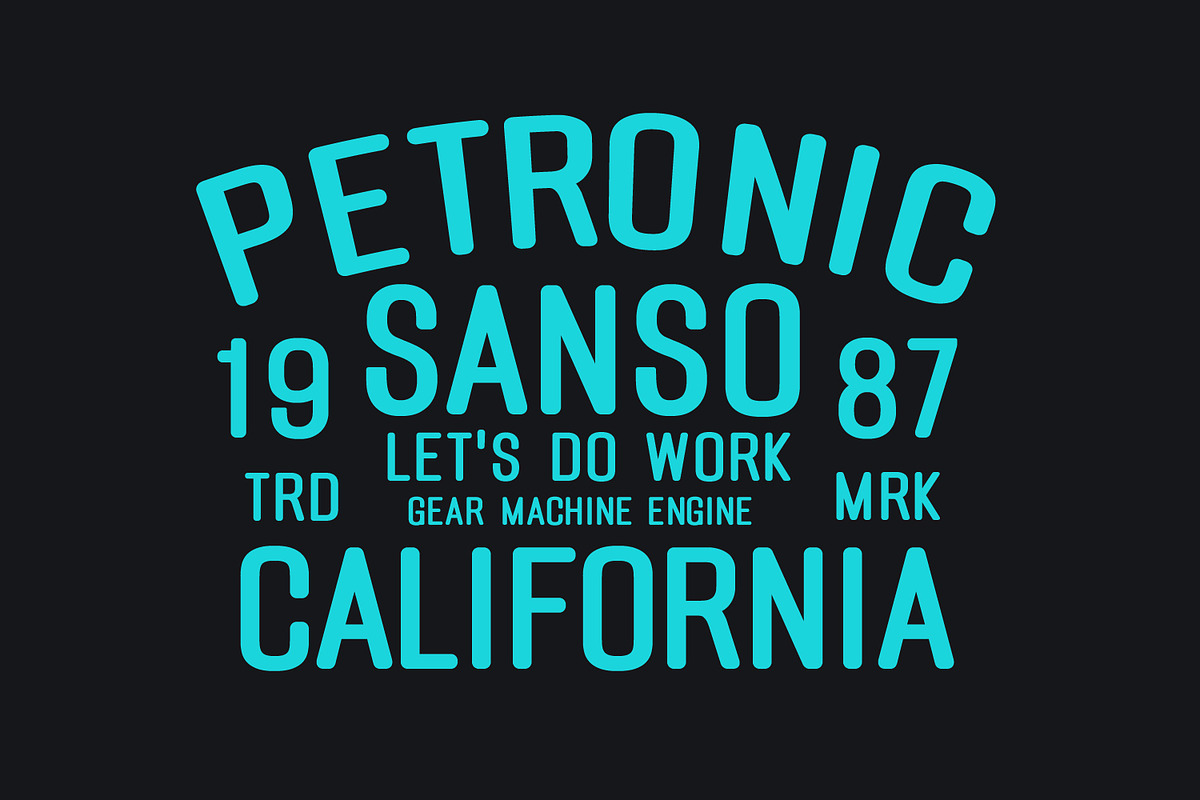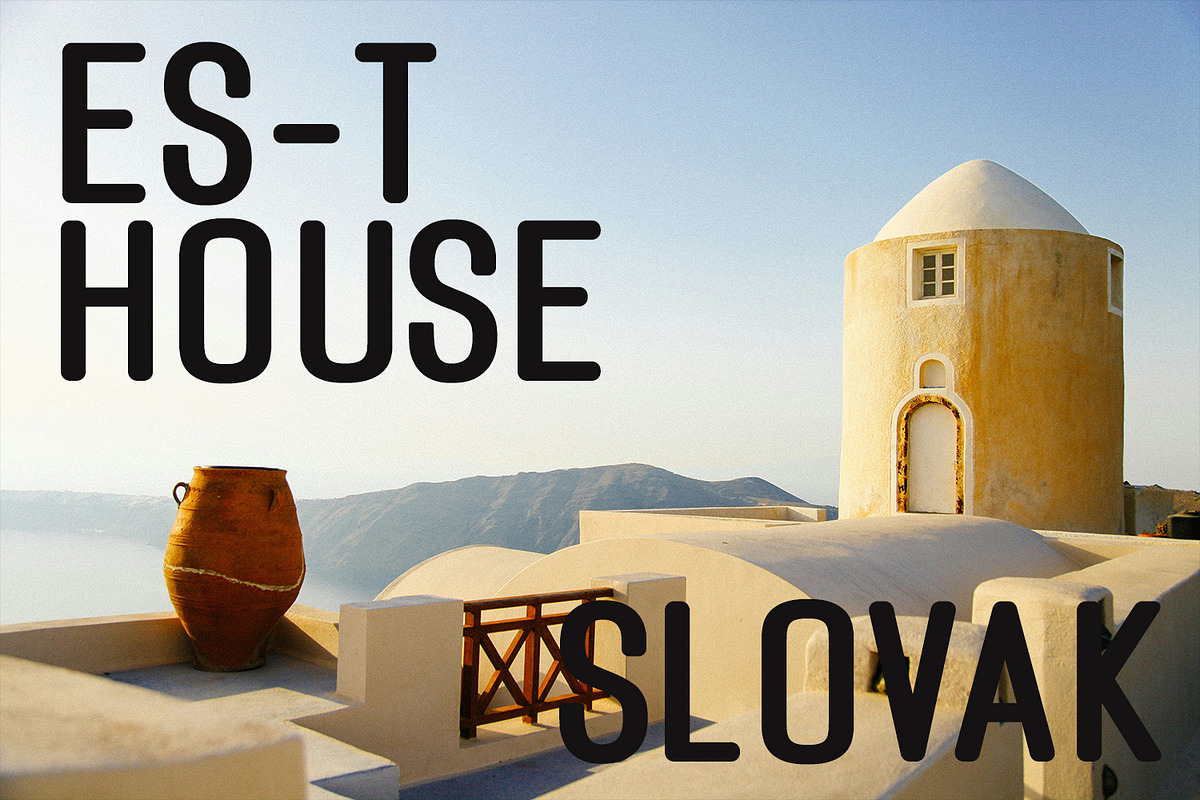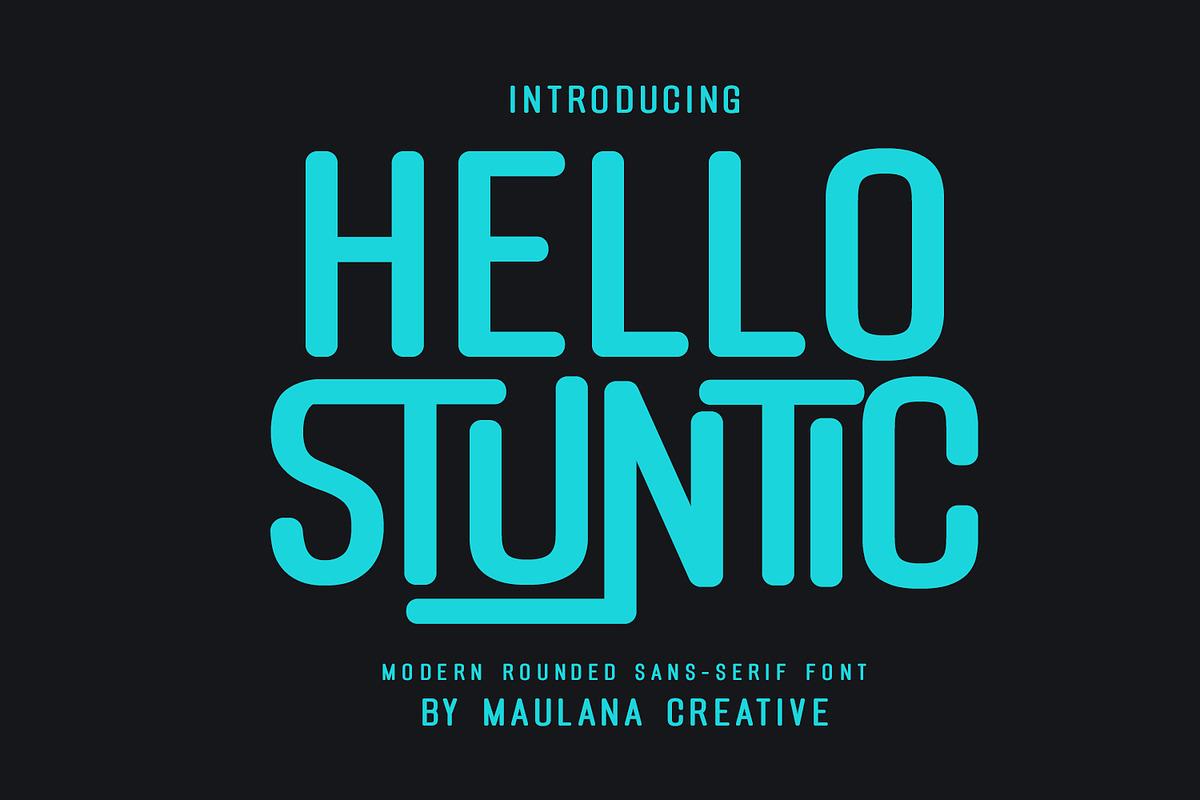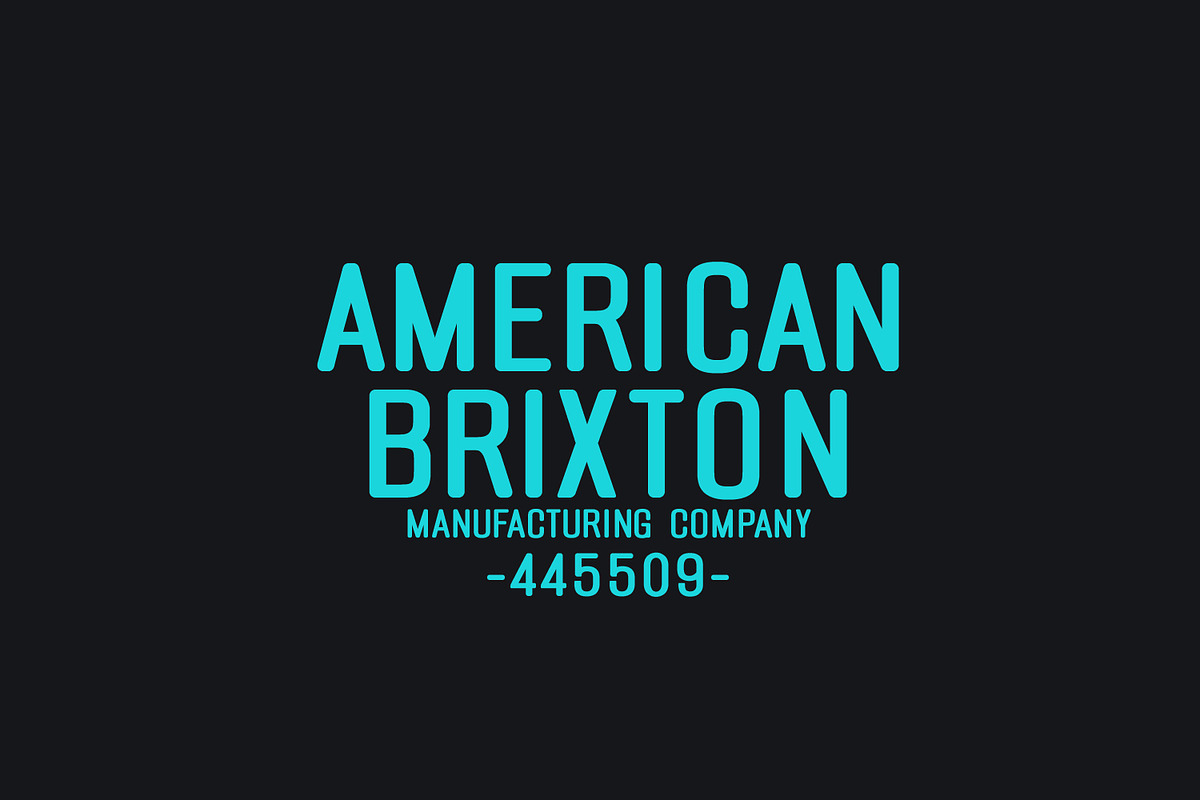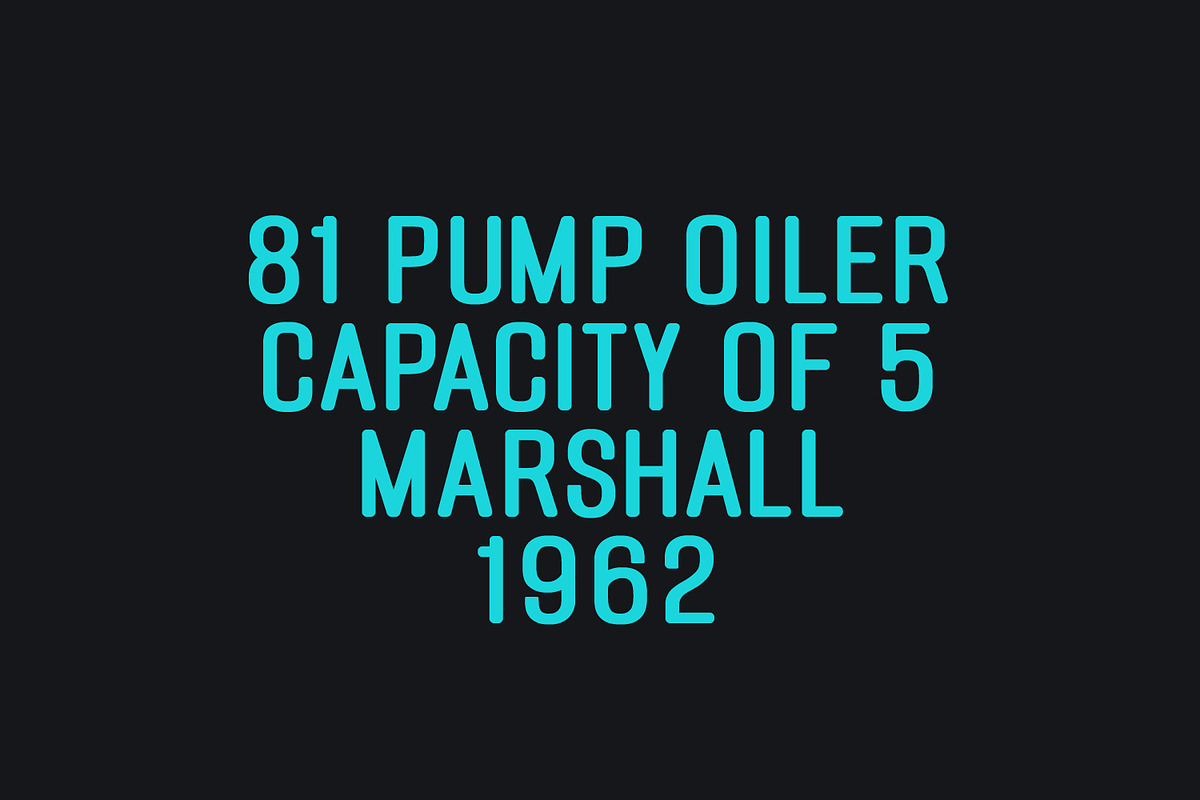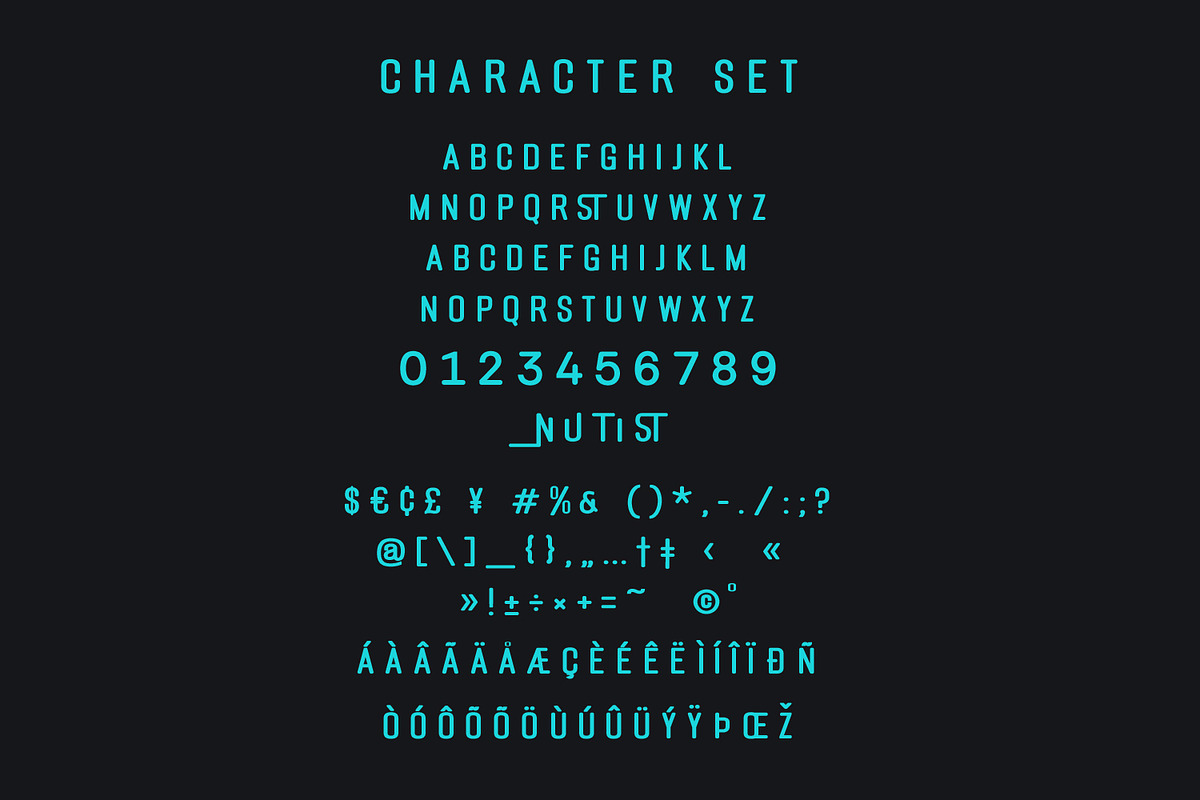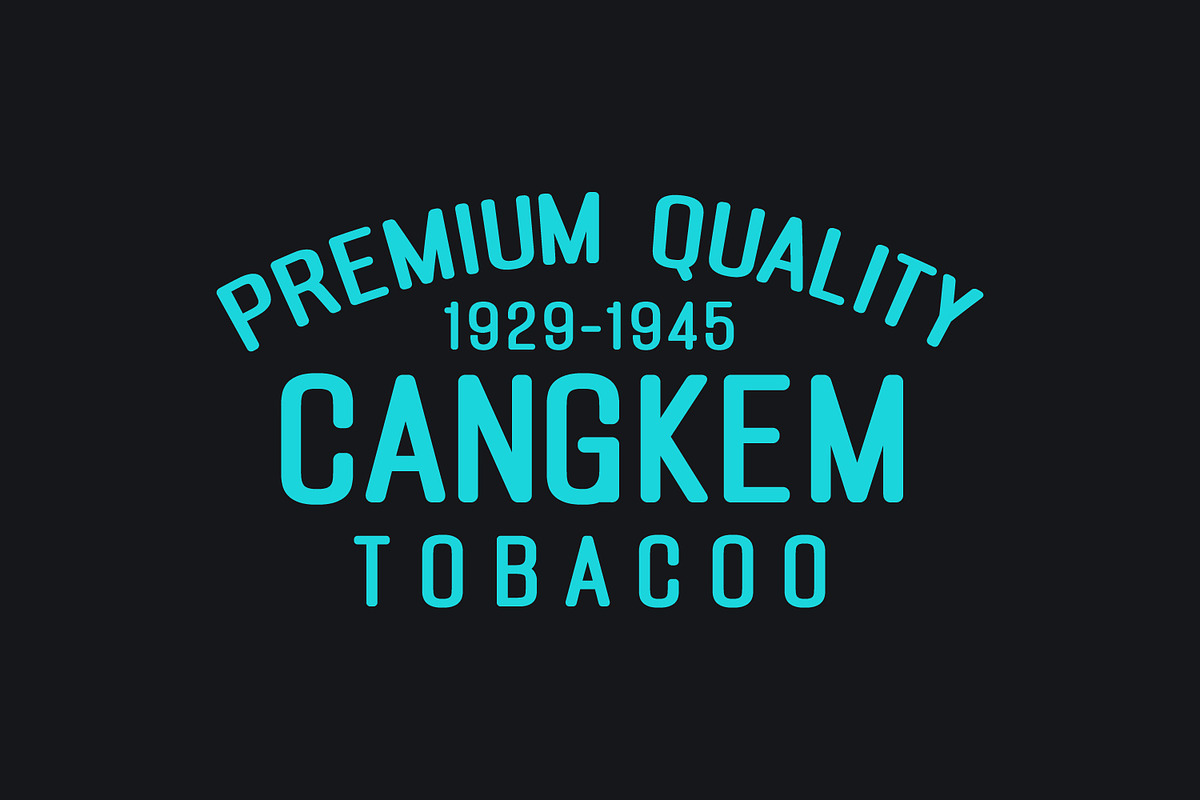
Hello Stuntic Modern Rounded Sans
Hello Stuntic is a sans modern rounded display decorative all caps font. With fun character, rounded stroke and looks fun to give you an extra creative work. Hello Stuntic font support multilingual more than 100+ language. This font is good for logo design, Social media, Movie Titles, Books Titles, a short text even a long text letter and good for your secondary text font with sans or serif. Make a stunning work with Hello Stuntic font.